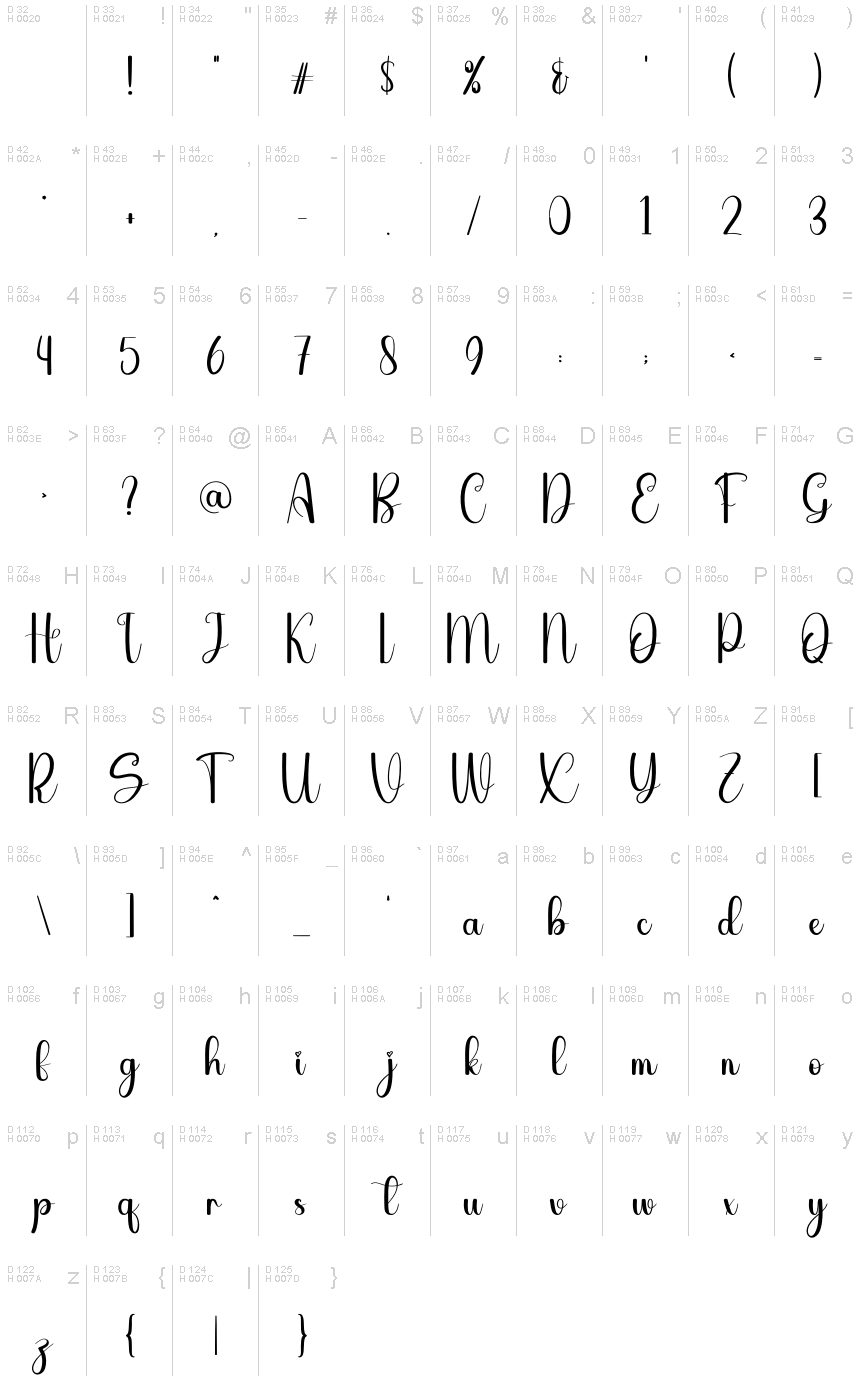
Rubicon
Rubicon is a captivating handwritten font that exudes a warm, personal charm. Crafted by designer Andi Moz, its fluid, organic strokes convey a sense of effortless elegance and artistry. The font's distinct personality is evident in the subtle variations and natural flow of its letterforms, creating a visually engaging and inviting aesthetic.
Rubicon's versatility shines through, making it a versatile choice for a wide range of design applications. From editorial layouts and branding materials to wedding stationery and event signage, this font's ability to evoke a heartfelt, handcrafted feel can elevate the overall visual experience.